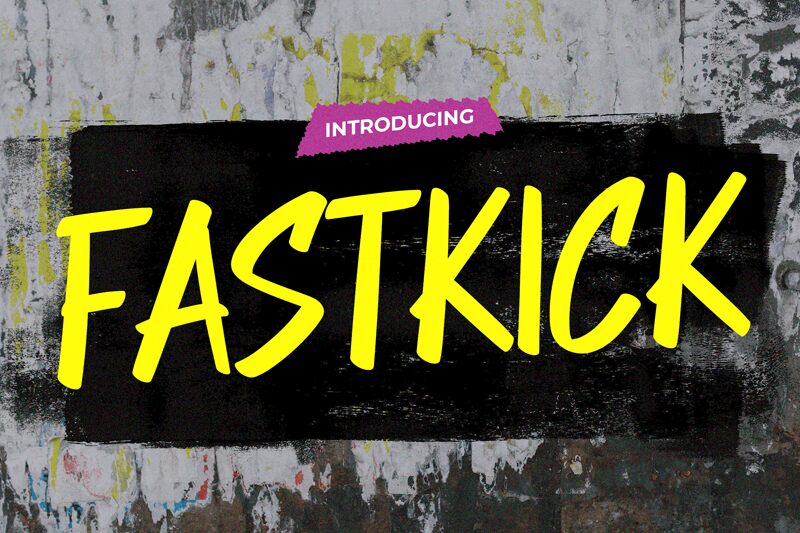
FAST KICK
Fast kick font designed by Pinisiart is a free font with contemporary graffiti and brush style letters. The character design features casual strokes, energetic curvatures, and expressive styles hence making the font an ideal visual element in artistic projects.
Fast kick font can be used in logos, banners, menus, magazines, posters, social media content or even digitally on websites and mobile applications.